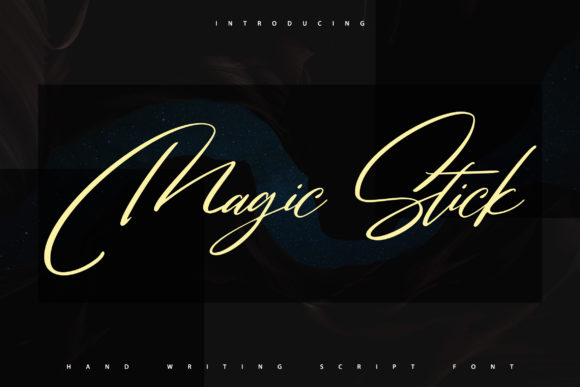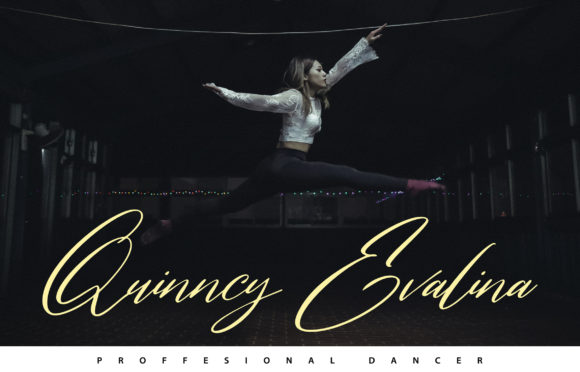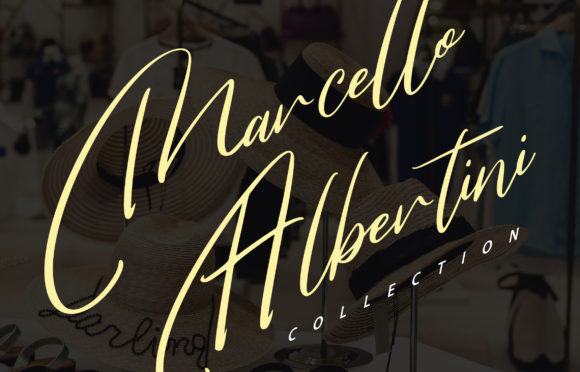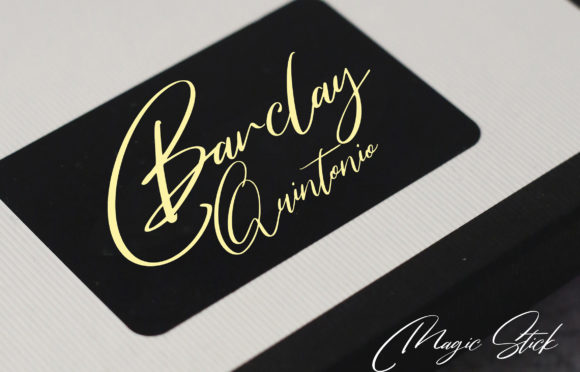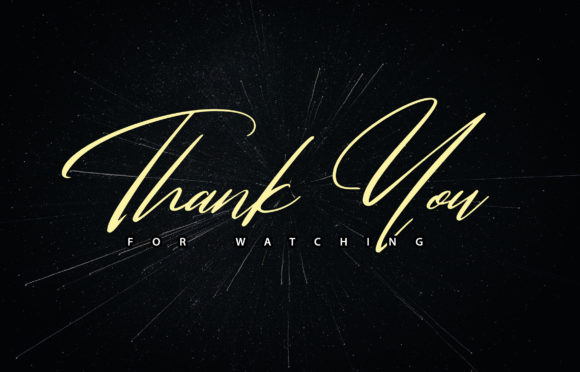
Magic Stick Font
About Magic Stick Font
Magic Stick is a gorgeous handwritten font. Its timeless and flowing style makes it fit for a large pool of designs. Fall in love with this font and bring your projects to the highest levels!